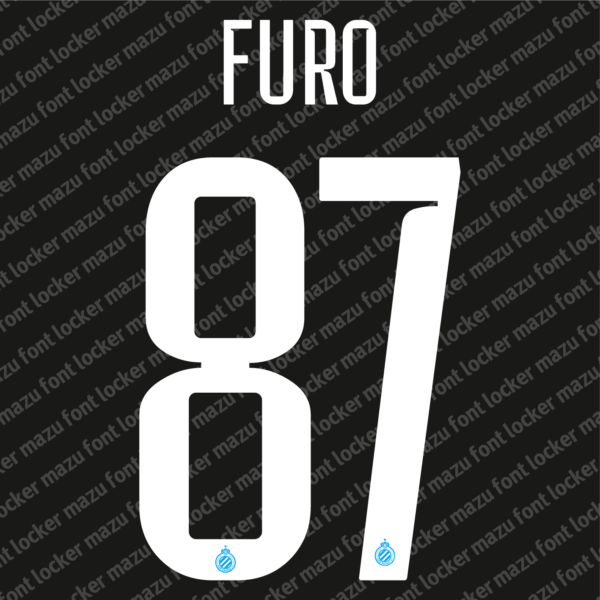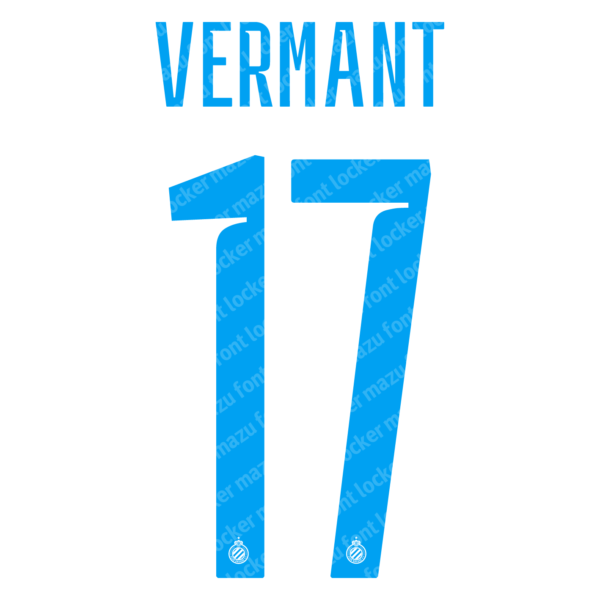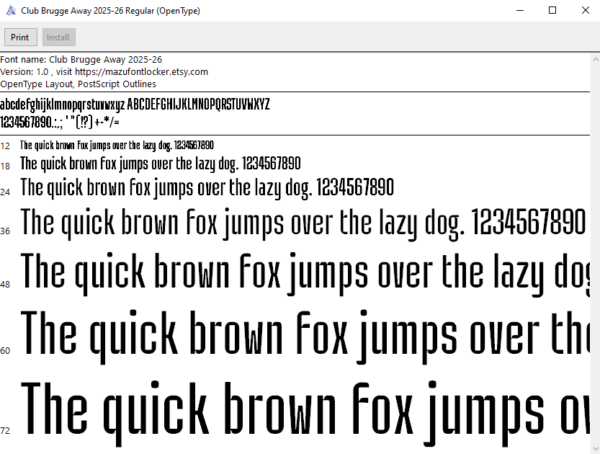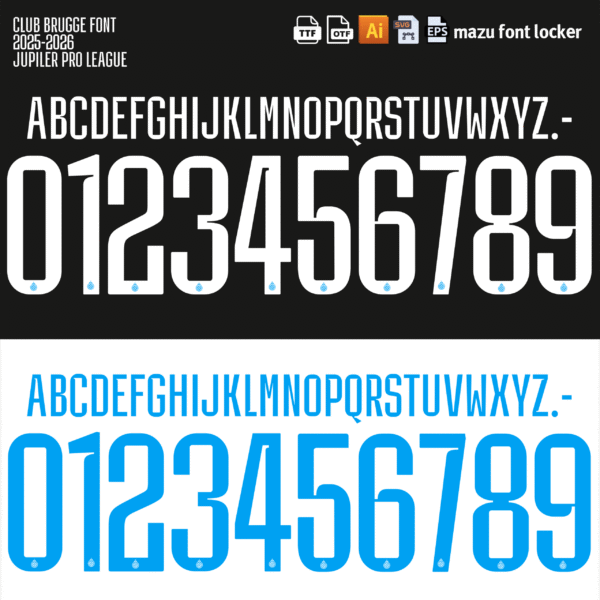
Club Brugge 2025-2026 Font Vector – Unstoppable Belgian Giant Masterpiece
Channeling the proud Blauw-Zwart fighting spirit, it features the sharp and commanding style that represents the club’s relentless ambition. Perfect for premium jersey mockups, football designs, and passionate Club Brugge art.
Club Brugge 2025-2026 Font Vector – Belgian Blue Typeface
The Club Brugge 2025-2026 Font Vector is a premium typeface that captures the distinctive lettering from Club Brugge’s official 2025-2026 season kit. This vector font kit reflects the bold, modern, and elegant typography that represents one of Belgium’s most successful football clubs.
Designed for creative professionals, football designers, and passionate Blauw-Zwart supporters, the Club Brugge 2025-2026 Font Vector offers exceptional authenticity for jersey mockups, fan merchandise, social media graphics, posters, and branding projects.
Why Choose Club Brugge 2025-2026 Font Vector
This font set is prized for its precision and faithful recreation of the official typography used on Club Brugge’s 2025-2026 home and away kits. Every glyph has been carefully designed to deliver the perfect balance of strength and sophistication.
The letterforms are bold, slightly condensed, and feature clean modern edges with subtle detailing — delivering strong visual impact while maintaining excellent readability for both large numbers and detailed graphics.
The numerals boast athletic proportions, sharp contours, and balanced weight, making them ideal for replicating player names and squad numbers on the 2025-2026 kits.
• Full uppercase A–Z and numbers 0–9 in the official 2025-2026 style
• Special Club Brugge crest glyph for authentic number detailing
• Includes precise crest placement used under player numbers on the official kit